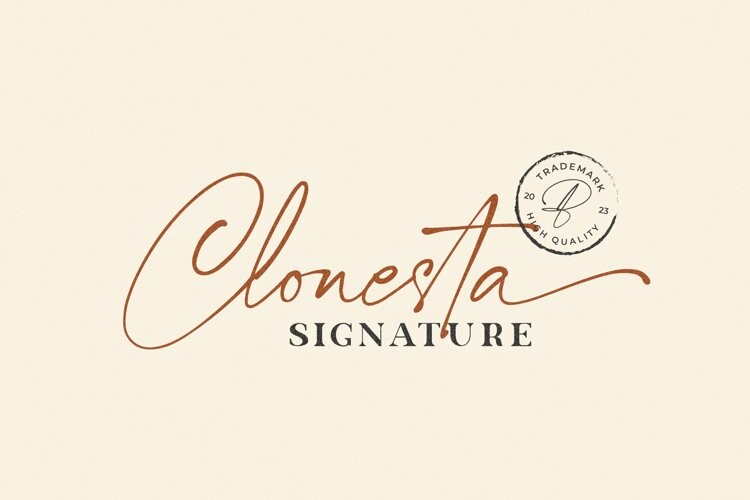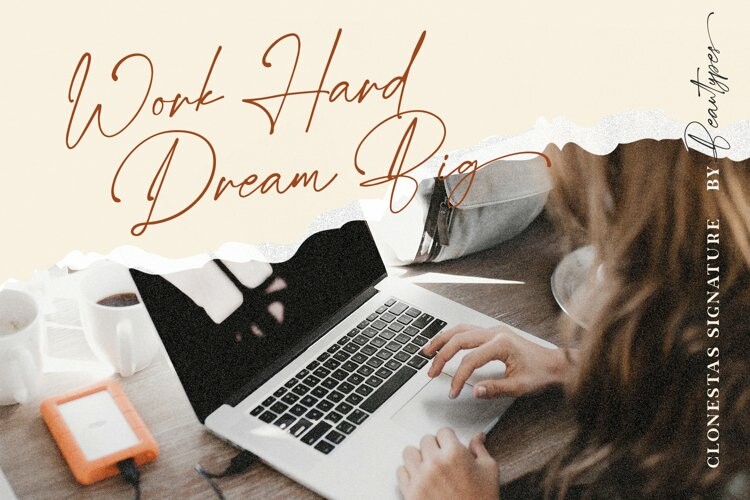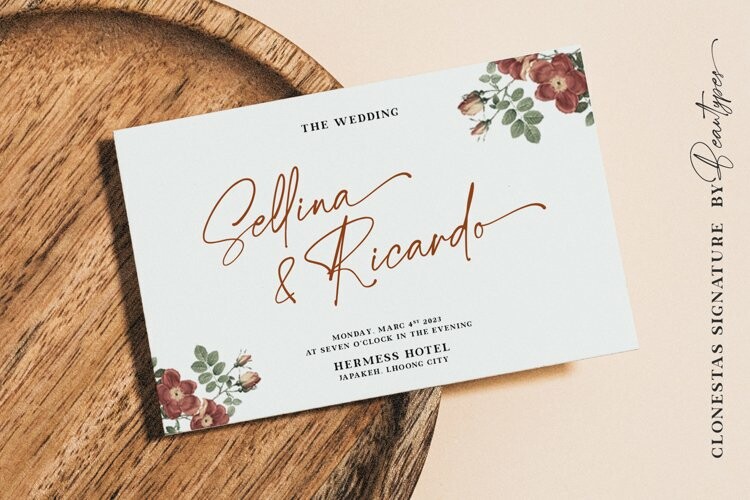
Clonesta Signature Font
Clonesta Signature FontClonesta Signature is an organic handwritten font that is suitable for branding, signature, wedding invitation, promotion, product packaging, and other needs.